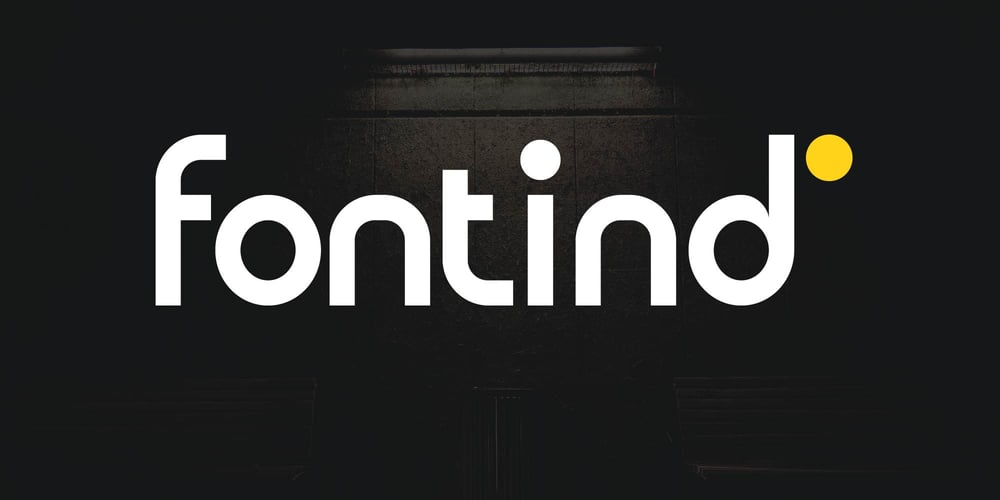
Fontind Font Family was designed by Iwan Alwan and published by Artiveko. Fontind contains 2 styles and family package options. Fontind is a unique sans serif font designed by Iwan Alwan, featuring unconventional and creative letterforms that break from traditional design. Ideal for modern branding, logos, and editorial layouts, Fontind adds a fresh and distinctive edge to any project. With multilingual support, ligatures, and alternates, Fontind offers both versatility and originality, making it perfect for designs that aim to stand out with a bold, inventive aesthetic.